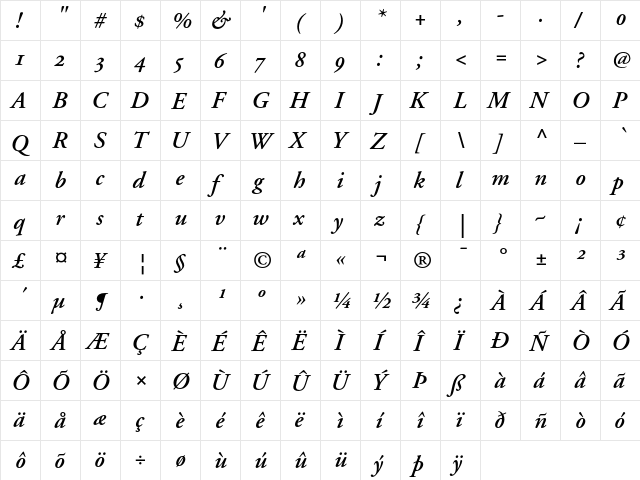
Adobe Garamond Semibold Italic Oldstyle Figures Font Preview
Adobe Garamond Semibold Italic Oldstyle Figures
Design Context for Adobe Garamond Typeface
Adobe Garamond carries the refined structure of traditional serif typography, with bracketed terminals and considered proportions that communicate credibility and craft. The slanted form adds forward momentum and visual energy. Its bold stroke weight gives it real presence on the page.